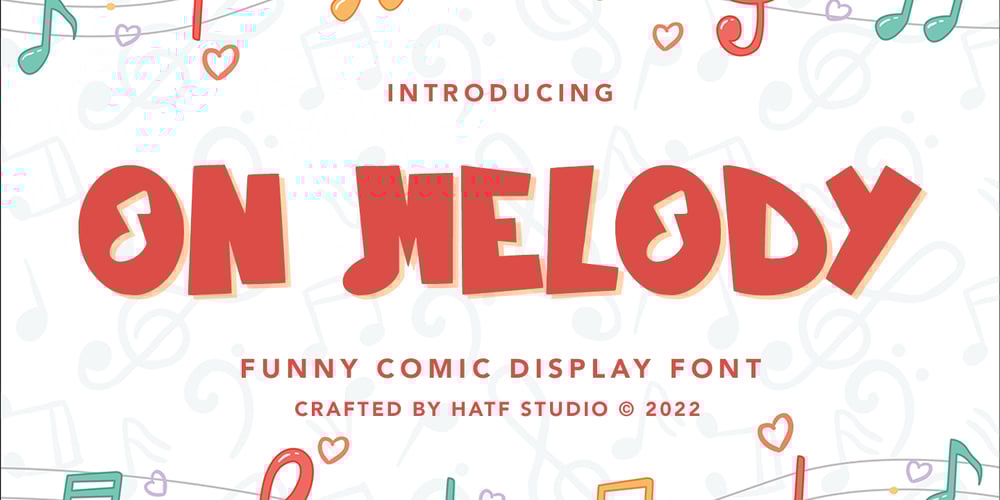
On Melody Font Family was designed by Asep Rendi and published by Hatftype. On Melody contains 1 styles and family package options. Is a comic display font with distinctive handwritten characters perfect for branding projects, logos, clothing designs, media posts, advertisements, product packaging, product designs, labels, photography, watermarks, invitations, stationery, and any project who need handwritten dishes.Feature : Symbol Number Punctuation Multilingual support Support in Mac and Windows OS Support in design application (photoshop, illustrator, and more) I really hope you enjoy it.